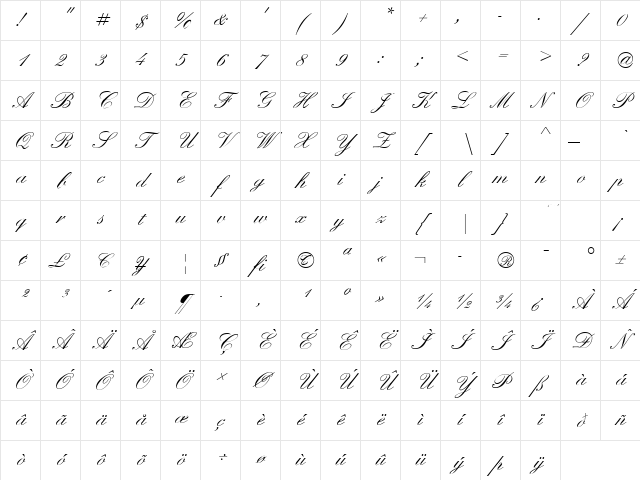
Complete YvonneBecker Regular glyph index. Displaying only characters natively supported by YvonneBecker Regular font.
YvonneBecker is a composed and adaptable typeface that performs quietly and consistently across a wide range of design contexts.